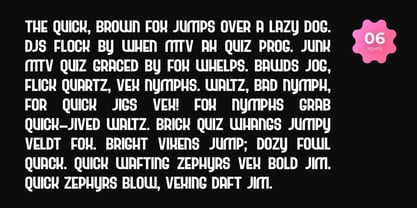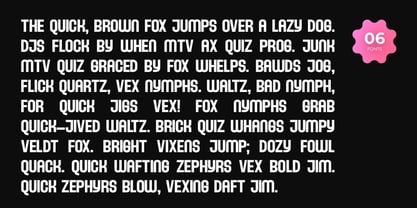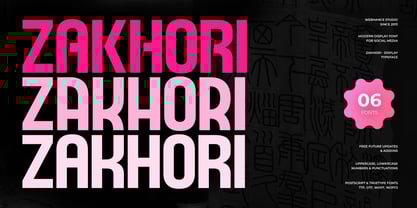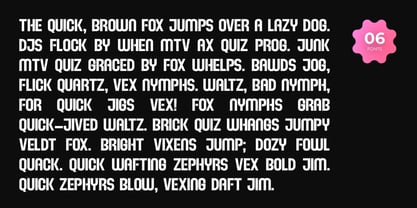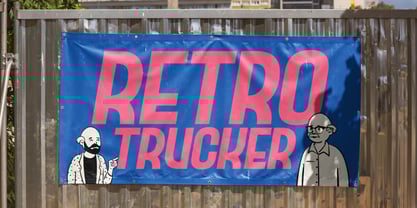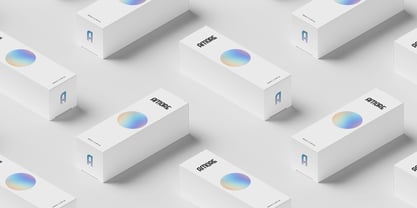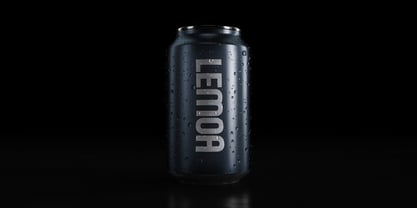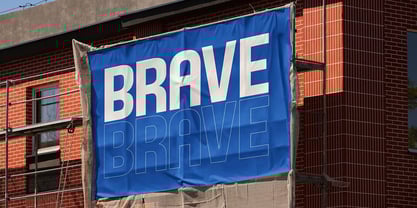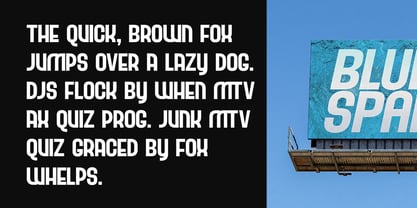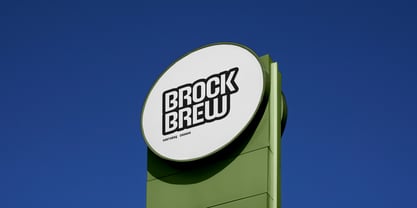
Zakhori Display
The Zakhori Display Font Family was designed by Alwin Johnson, Ancy George and published by Webhance. Zakhori Display contains 6 styles and family package options.
The Zakhori font family is a bold and creative display typeface crafted to stand out in modern design. With its sharp edges, unique character shapes, and expressive personality, Zakhori is perfect for branding, headlines, posters, packaging, and digital graphics.
This family includes three distinctive variants — Regular, Titan, and Uniqua — each offering its own visual strength. All styles come with matching Italics, giving you a total of 06 fonts to explore endless design possibilities.